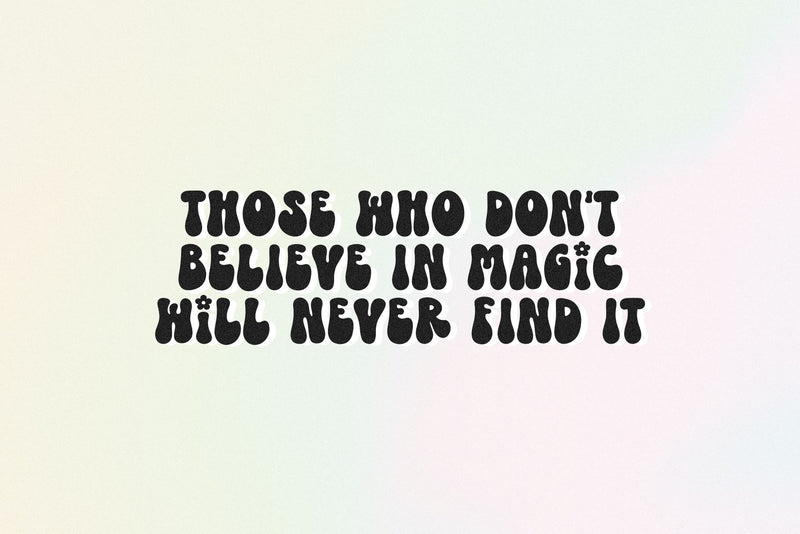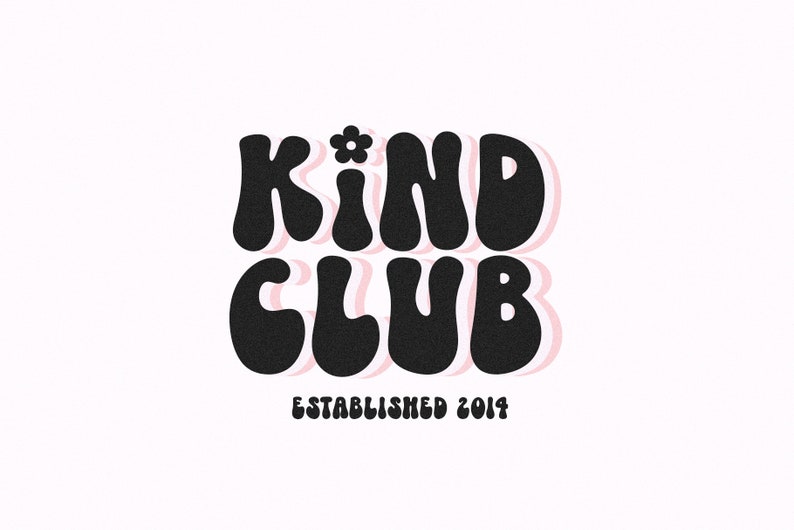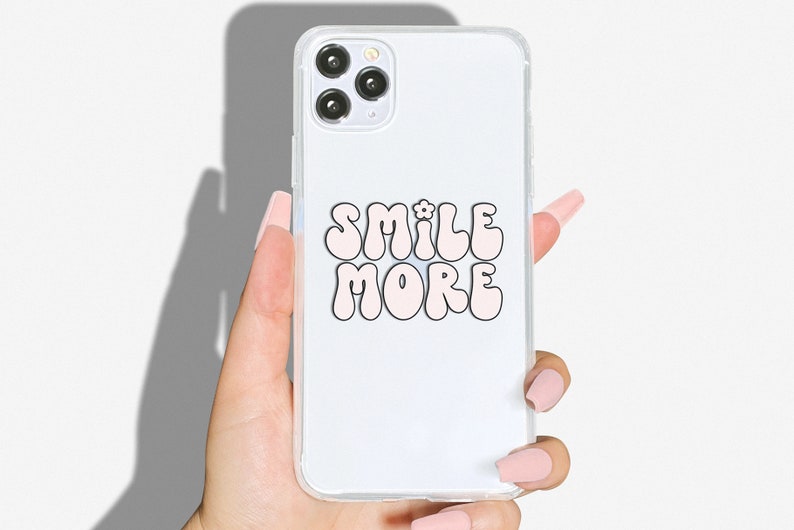
Sunrise Groovy Retro Font - This font is perfect for creating retro. Sunrise is a fun and cute groovy retro display font, inspired by retro typography.
This font is perfect for creating retro. Sunrise is a fun and cute groovy retro display font, inspired by retro typography.
Sunrise is a fun and cute groovy retro display font, inspired by retro typography. This font is perfect for creating retro.
This font is perfect for creating retro. Sunrise is a fun and cute groovy retro display font, inspired by retro typography.
Sunrise is a fun and cute groovy retro display font, inspired by retro typography. This font is perfect for creating retro.
This font is perfect for creating retro. Sunrise is a fun and cute groovy retro display font, inspired by retro typography.
Sunrise is a fun and cute groovy retro display font, inspired by retro typography. This font is perfect for creating retro.
This Font Is Perfect For Creating Retro.
Sunrise is a fun and cute groovy retro display font, inspired by retro typography.